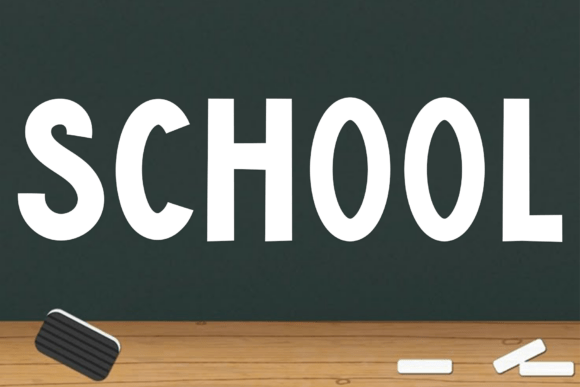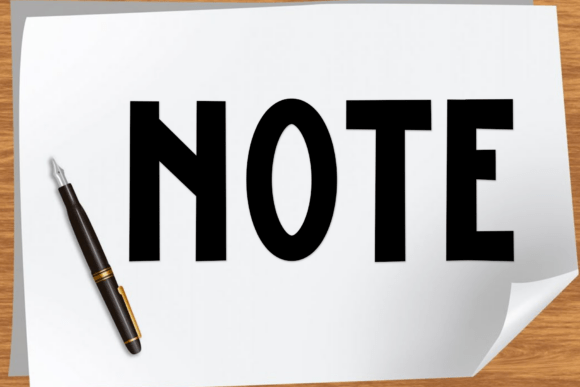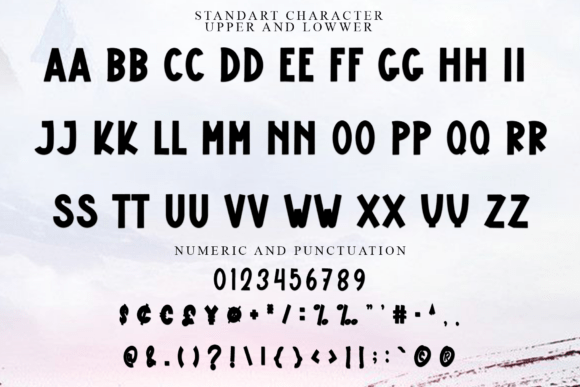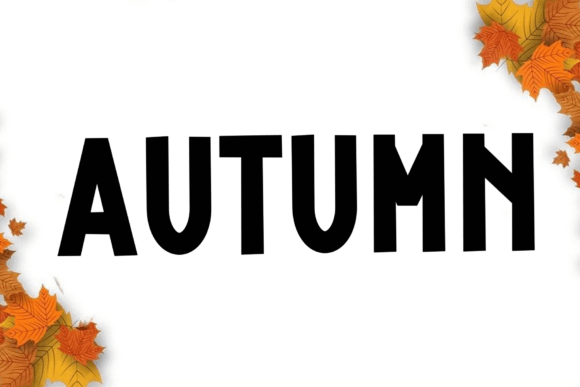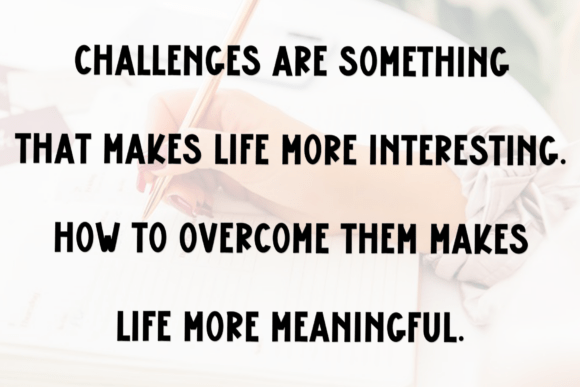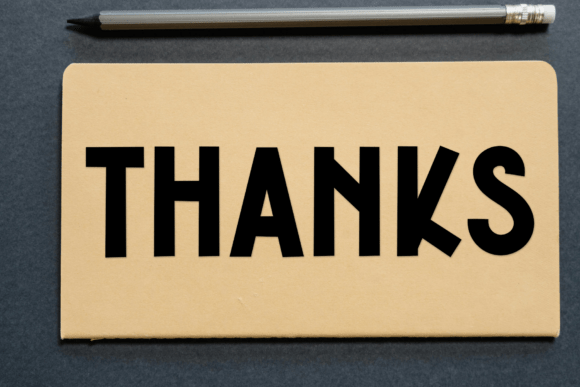
The Magic of the Holiday Season in Typography
Do you remember the moment when you first started planning your holiday decorations, only to be overwhelmed by the sheer number of ideas and possibilities? The twinkling lights, the colorful ornaments, the festive music – it’s a time of year that sparks creativity and joy in everyone. And what’s a holiday season without a dash of typography to match the magic?
That’s where the Creative Teacher Font comes in – a festive and merry typeface that captures the spirit of the holiday season. With its decorative elements and whimsical flair, this font adds a touch of enchantment to your designs, making it perfect for greeting cards, gift tags, and holiday-themed projects. Whether you’re a seasoned designer or a crafty enthusiast, the Creative Teacher Font is a valuable addition to your toolkit, bringing a cheerful and nostalgic ambiance to your words.
Creative Teacher Font Key Features
- Unique Characteristics: Unique letterforms, creative flourishes, and playful details that evoke a sense of whimsy and imagination.
Review of Creative Teacher Font
I recently had the opportunity to work with the Creative Teacher Font, and I must say it’s a unique addition to any educational design project. Here’s my honest take:
- Playful and friendly feel: The Creative Teacher Font is perfect for conveying a sense of approachability and warmth, making it ideal for educational materials and children’s content.
- Legibility: Despite its playful nature, the font is surprisingly easy to read, even at smaller sizes.
- Customization options: The font offers a range of styles and weights, allowing you to tailor it to your specific design needs.
- Limited professional applications: While the font is perfect for educational and children’s content, it may not be suitable for more formal or professional contexts.
- Lack of consistency: Some users may find the font’s irregularities and variations in letterforms distracting or difficult to read.
Overall, I think the Creative Teacher Font is a great choice for designers working on educational or children’s projects. While it may not be the best fit for every project, it’s a fun and engaging font that can add a lot of personality to your designs. Just be mindful of its limitations and use it in contexts where its playful nature will shine through.
Getting the Most Out of the Creative Teacher Font
To get the most out of the Creative Teacher Font, use it in bold or italic styles to add emphasis to your text.
Combine the font with other creative elements, such as graphics and illustrations, to add visual interest to your designs.
The Creative Teacher Font is ideal for:
Teacher resources and lesson plans
Education-related graphics and illustrations
Teacher blogs and websites
Education marketing materials
Alternatives to Creative Teacher Font
Great Vibes Font is a modern, handwritten font perfect for creative projects that require a touch of elegance and sophistication. It is ideal for use in headings, titles, and quotes where you want to add a personal touch. Compared to Creative Teacher Font, Great Vibes Font is more polished and refined, making it suitable for a wider range of design projects.
Pacifico Font is a beautiful, cursive font that exudes a sense of relaxation and calmness. It is perfect for use in projects that require a soothing and peaceful atmosphere, such as wedding invitations, baby announcements, or spa websites. Compared to Creative Teacher Font, Pacifico Font is more laid-back and casual, making it suitable for projects that require a more relaxed tone.